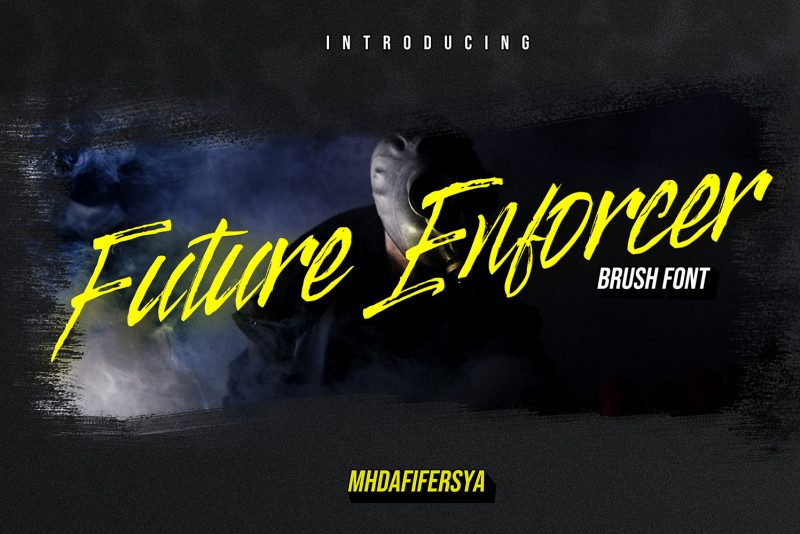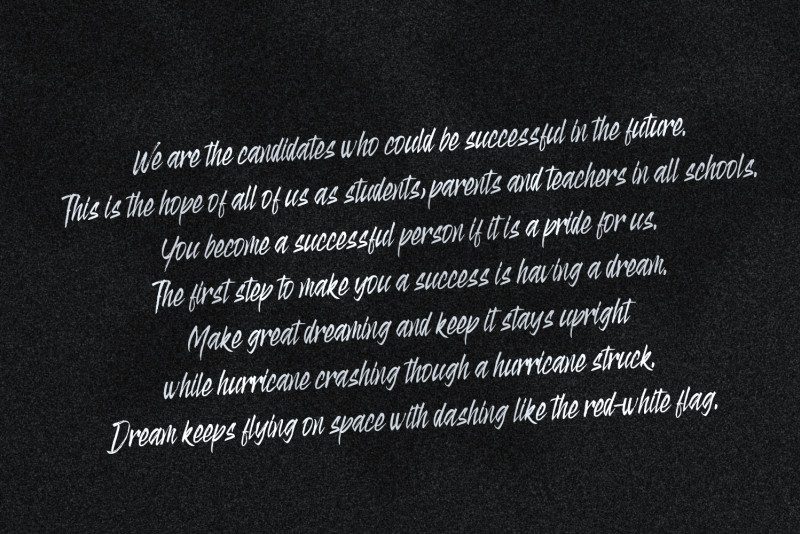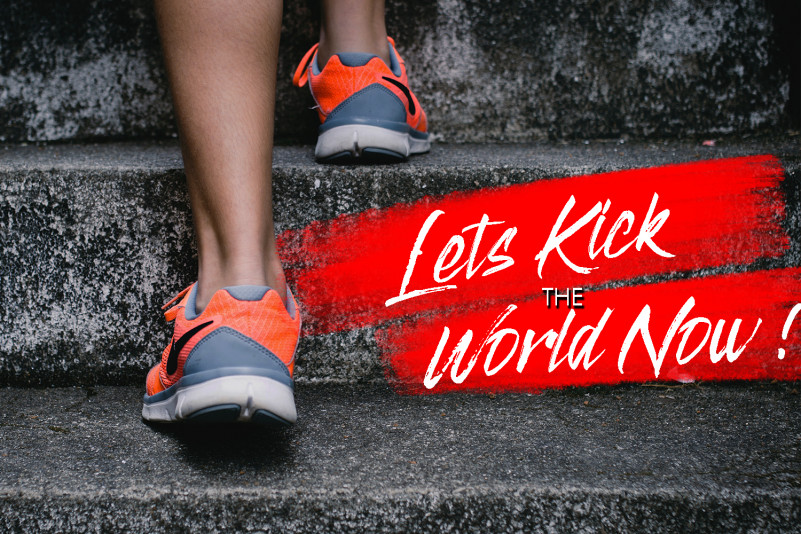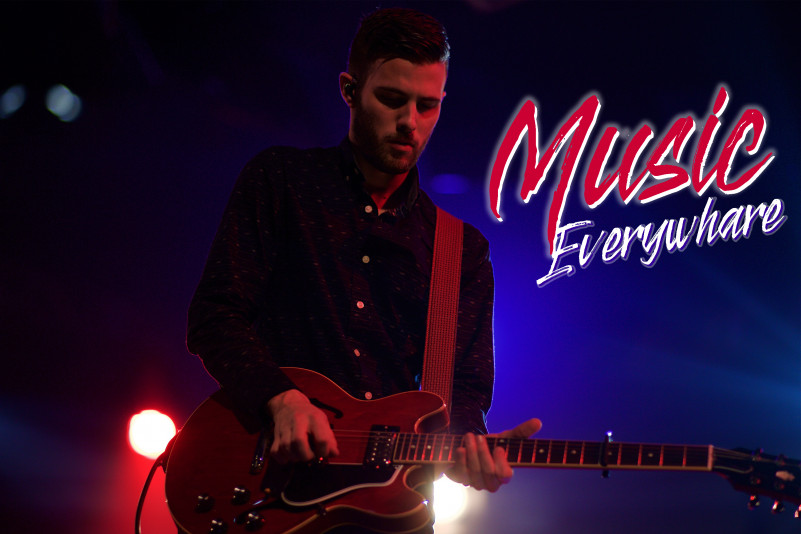
Future Enforcer Brush Font
This is a script handbrush font, designed and shared by Mhdafifersya. It’s a modern brush font with handwritten style and natural rough dry brush strokes. Introducing Future Enforcer Font. Future Enforcer Brush is a natural handbrused font, this font Is perfect for logo, invitation, stationery, wedding designs, social media posts, advertisements, product packaging, product designs, label, photography, watermark, special events or anything. Displatter comes with full set of uppercase and lowercase letters, multilingual symbols, numerals, punctuation.